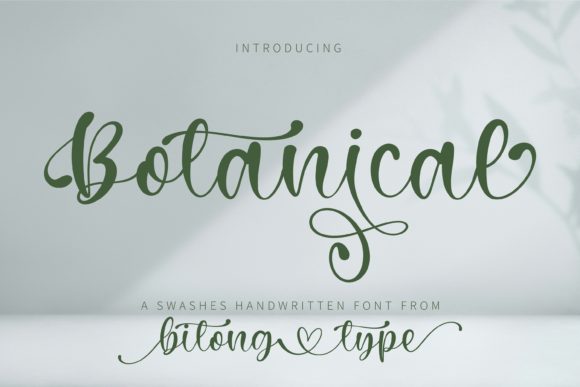
The Elegant World of Botanical Font: A Designer’s Delight
I’ll never forget the moment I stumbled upon the perfect font for a client’s wedding invitation project. I had been scrolling through pages of font options, but none seemed to capture the essence of elegance and whimsy I was looking for. That was until I discovered Botanical Font – a delicate, elegant, and flowing handwritten font that has since become a staple in my design toolkit.
As a designer, I can be quite particular about the fonts I use. So, here’s my honest review of Botanical Font:
• ✨ Beautifully crafted characters: Each letter is meticulously designed to be both elegant and legible.
• ✅ Versatile: It pairs well with a wide range of designs, from modern and minimalist to vintage and ornate.
• ✅ PUA encoded: This means accessing all glyphs and swashes is a breeze, giving you endless creative possibilities.
However, no font is perfect, and I did encounter a few minor quirks:
• 🤔 Some characters may require adjusting: Occasionally, you might need to tweak the spacing or size of certain characters to get the perfect look.
• ⚠️ Not ideal for body text: Due to its elegant and flowing nature, Botanical Font is best used for headings or short paragraphs.
The Story Behind Botanical Font
While the actual origins of Botanical Font might be shrouded in mystery, it’s easy to imagine a designer inspired by the delicate beauty of botanical illustrations and the flowing scripts of vintage letters. Perhaps the designer, an avid nature lover and typography enthusiast, aimed to capture the elegance and serenity of the natural world in a font.
Is Botanical Font suitable for body text? No, Botanical Font is best used for headings or short paragraphs due to its elegant and flowing nature.
How do I access the glyphs and swashes in Botanical Font? Botanical Font being PUA encoded makes it easy to access glyphs and swashes through the font’s OpenType features in compatible design software.